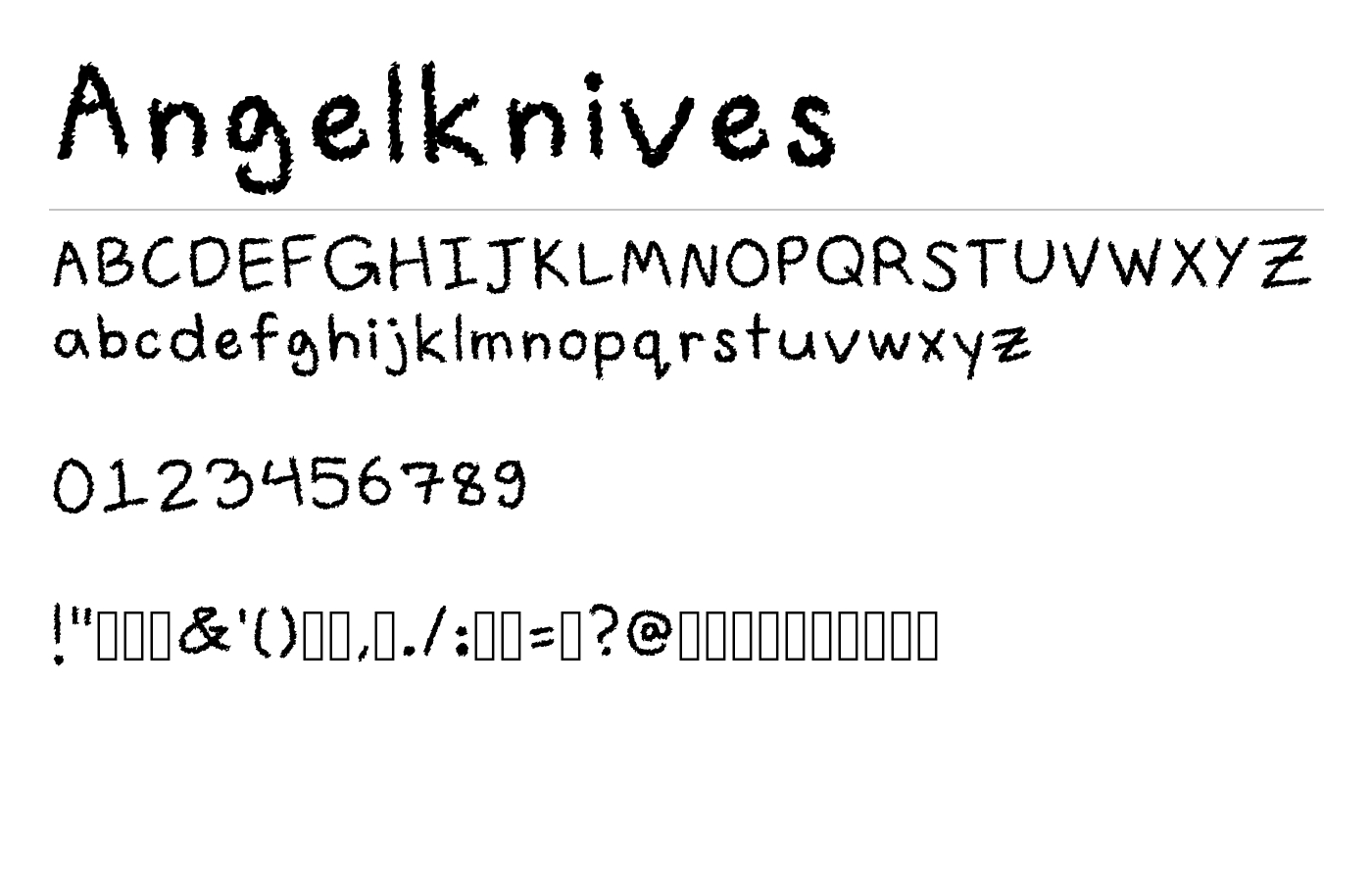
Angelknives is a quirky, hand-drawn sans serif font that features rough, textured strokes giving it an organic, imperfect feel. Its casual, playful style works well for projects seeking a personal or creative touch, such as informal branding, posters, and artistic designs. This font’s irregular shapes and friendly tone make it ideal for adding a unique, approachable vibe without the rigidity of traditional typefaces.
Angelknives Font
About Angelknives Font